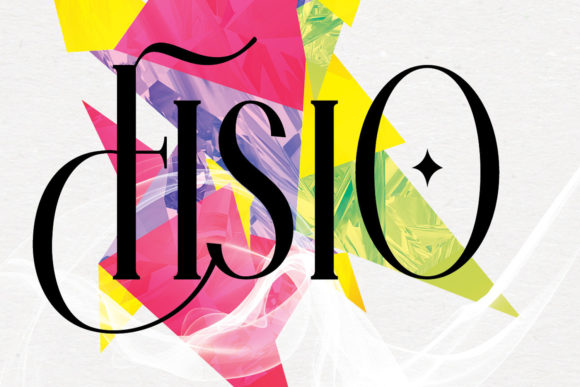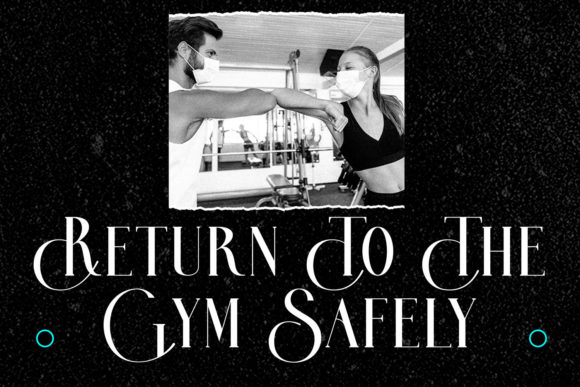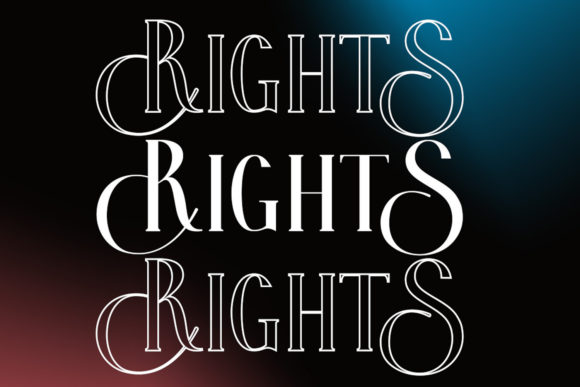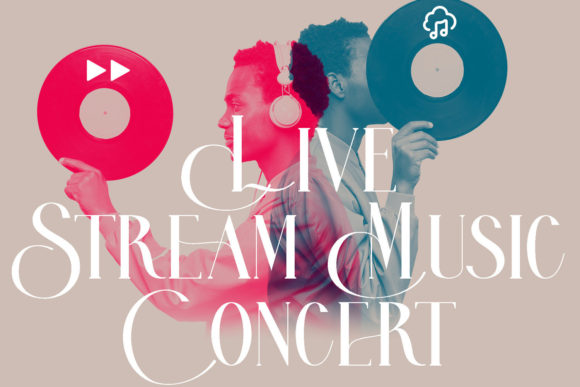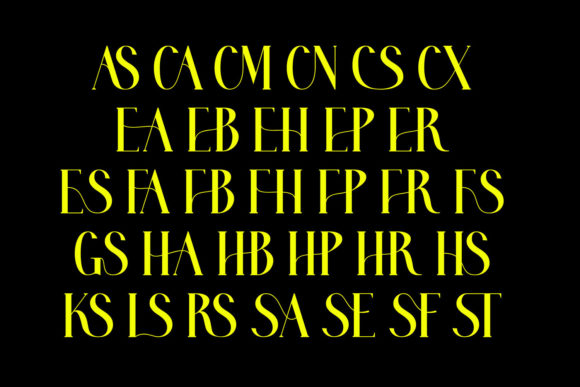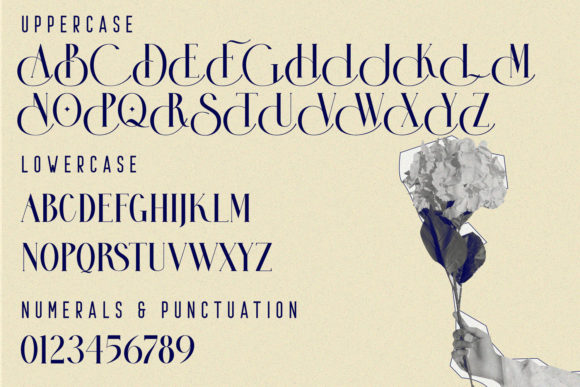
Introducing Activists Font: Elevate Your Designs with a Timeless Classic
Are you a designer or crafter looking for a font that exudes elegance and sophistication? Look no further than Activists Font, a tall and classic styled serif font that is sure to elevate your designs to new heights. With its PUA encoding, this font offers endless possibilities for creative expression.
What is Activists Font?
Activists Font is a serif font that boasts a tall and classic style, reminiscent of traditional typography. Its sleek lines, refined curves, and precise craftsmanship make it an ideal choice for designers seeking a sophisticated look. The font is PUA (Private Use Area) encoded, which means that you can access all glyphs and swashes with ease, giving you unparalleled flexibility and creative control.
Key Features of Activists Font
- PUA Encoding: With PUA encoding, you can access all glyphs and swashes, allowing you to experiment with different combinations and create unique designs.
- Tall and Classic Style: The font’s tall and classic style makes it perfect for designs that require a touch of elegance and sophistication.
- Serif Design: The serif design of Activists Font adds a level of refinement and precision to your designs, making it suitable for a wide range of applications.
- Endless Possibilities: With Activists Font, the possibilities are endless. Use it for branding, packaging, advertising, or any other design project that requires a classic and sophisticated look.
Why Choose Activists Font?
There are many fonts available that claim to offer a classic and sophisticated look, but Activists Font stands out from the rest. Here are just a few reasons why:
- Unique Glyphs and Swashes: The PUA encoding of Activists Font provides access to a wide range of unique glyphs and swashes, allowing you to create designs that are truly one-of-a-kind.
- High-Quality Design: Activists Font is designed with precision and attention to detail, ensuring that it looks great in any size or application.
- Versatility: Whether you’re designing a logo, brochure, or website, Activists Font is versatile enough to fit any design style or theme.
Design Ideas with Activists Font
Activists Font is a versatile font that can be used for a wide range of design projects. Here are a few ideas to get you started:
- Branding and Logo Design: Use Activists Font to create a sophisticated and elegant logo for your brand.
- Packaging Design: Add a touch of class to your packaging designs with Activists Font.
- Advertising: Use Activists Font in your advertising materials to create a sense of luxury and sophistication.
- Web Design: Use Activists Font for your website design to create a professional and elegant look.
Activists Font is a timeless classic that is sure to elevate your designs to new heights. With its PUA encoding, tall and classic style, and serif design, this font offers endless possibilities for creative expression. Whether you’re a designer or crafter, Activists Font is a must-have font that will help you create stunning designs that exude elegance and sophistication.